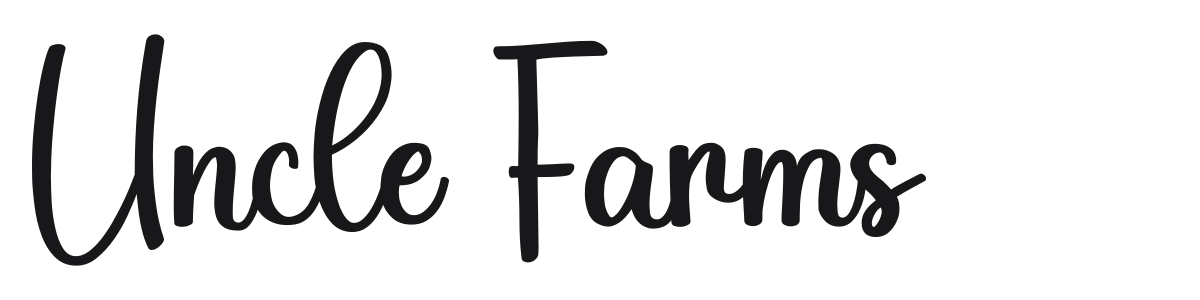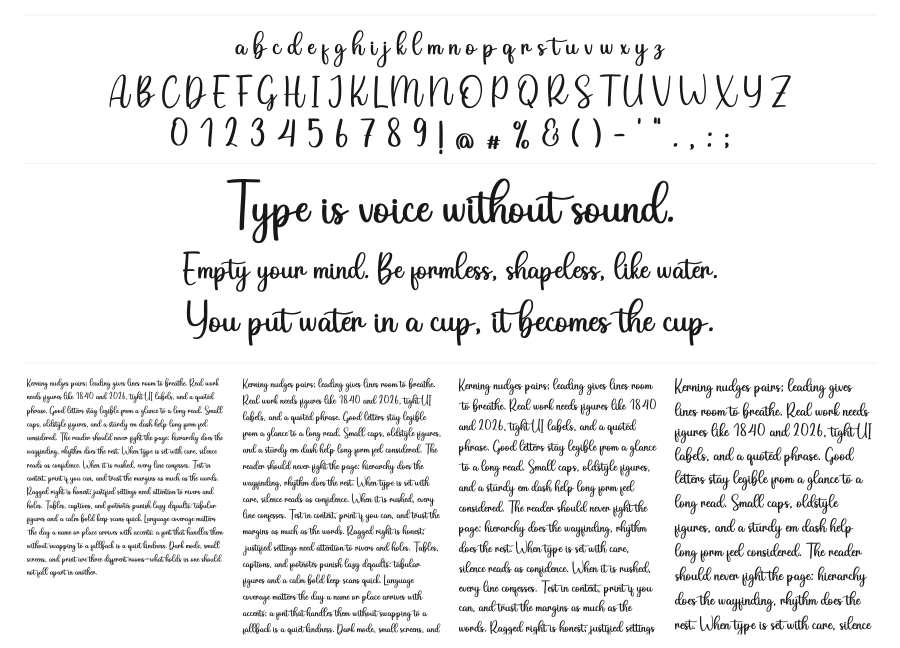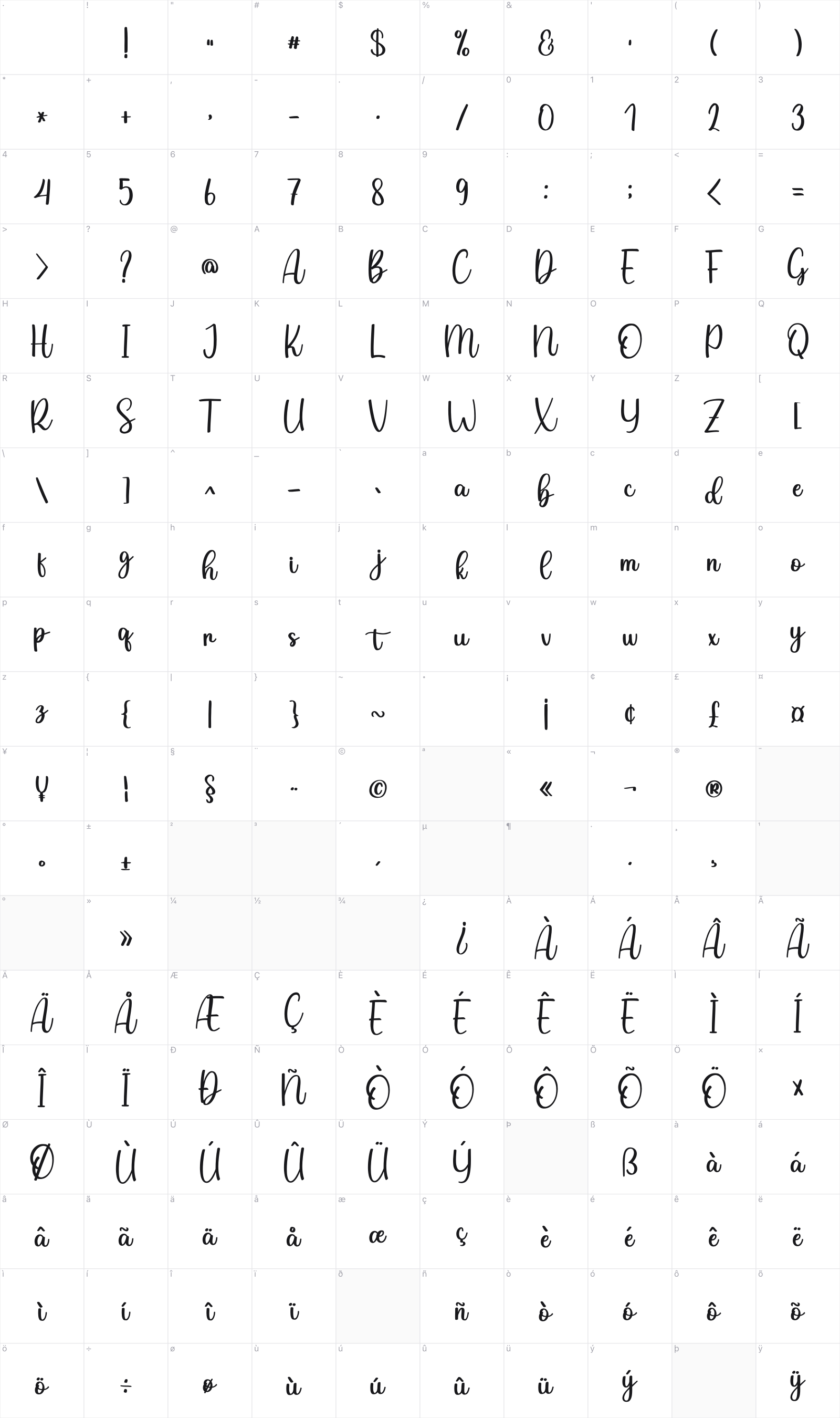
Uncle Farms
Uncle Farms is a casual handwritten script with a natural, flowing rhythm and generous looping strokes. The moderate stroke contrast and slightly bouncy baseline give it an authentic pen-drawn quality that feels personal without being precious. It works well for branding, packaging, and any project that needs a friendly, handcrafted touch.